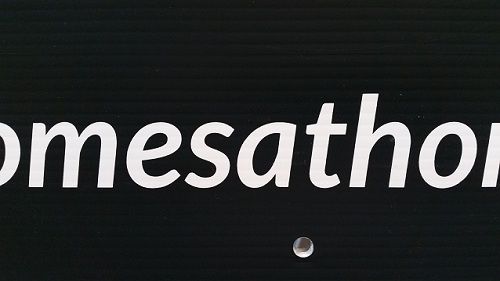
Please can someone ID this font.
If you look at the ‘e’ the tail has ‘sharp and ’rounded’ properties.
Nearest I can think of is Segoe, but it has not got the rounded bits you noted.
I see what you mean, but it’s not quite it.
It’s pretty easy to manipulate the corners in most design software.
True indeed Gil, but I have a whole load of type to lay out.
Sorry to ask again, but has anyone got any idea on this font?
Sorry to ask again so soon after my previous request, but this is doing my head in.
I definately recognise it but the name elludes me. 🙁
Can anyone ID it please.
Dax Bold, with the i dot changed to a square.